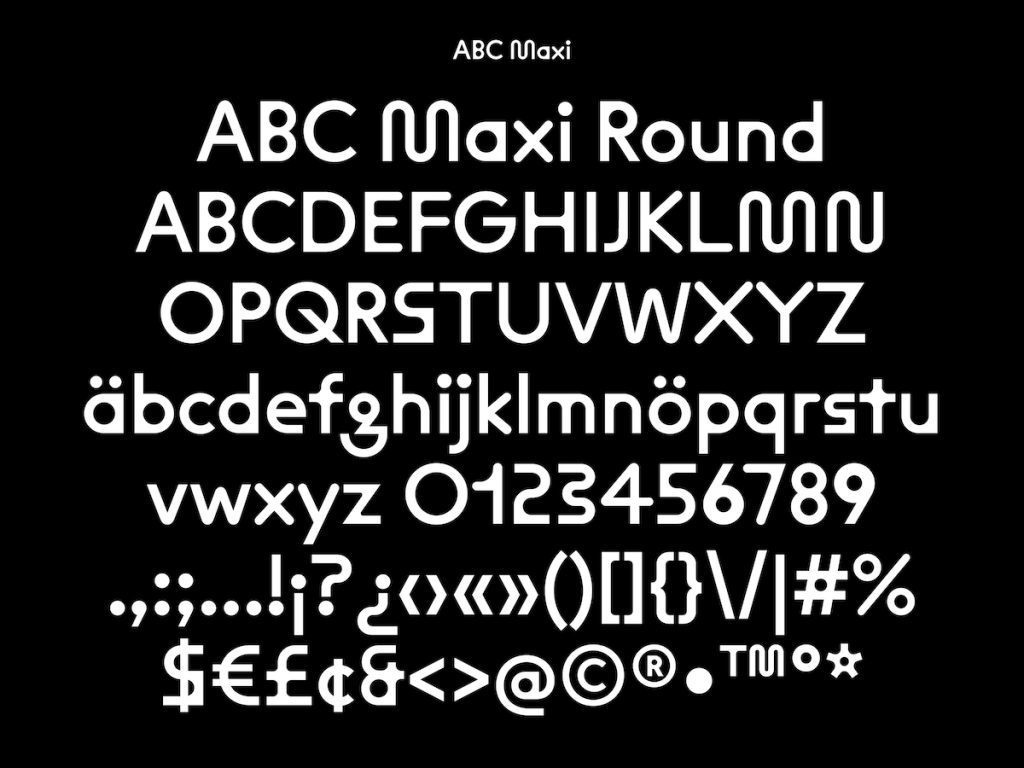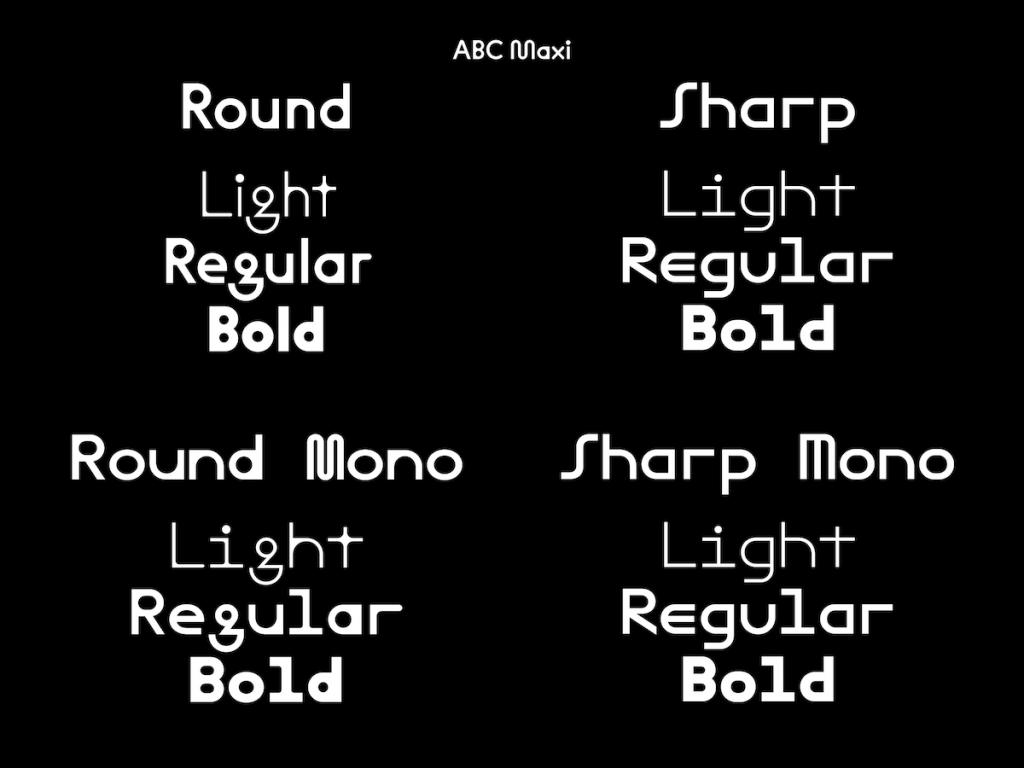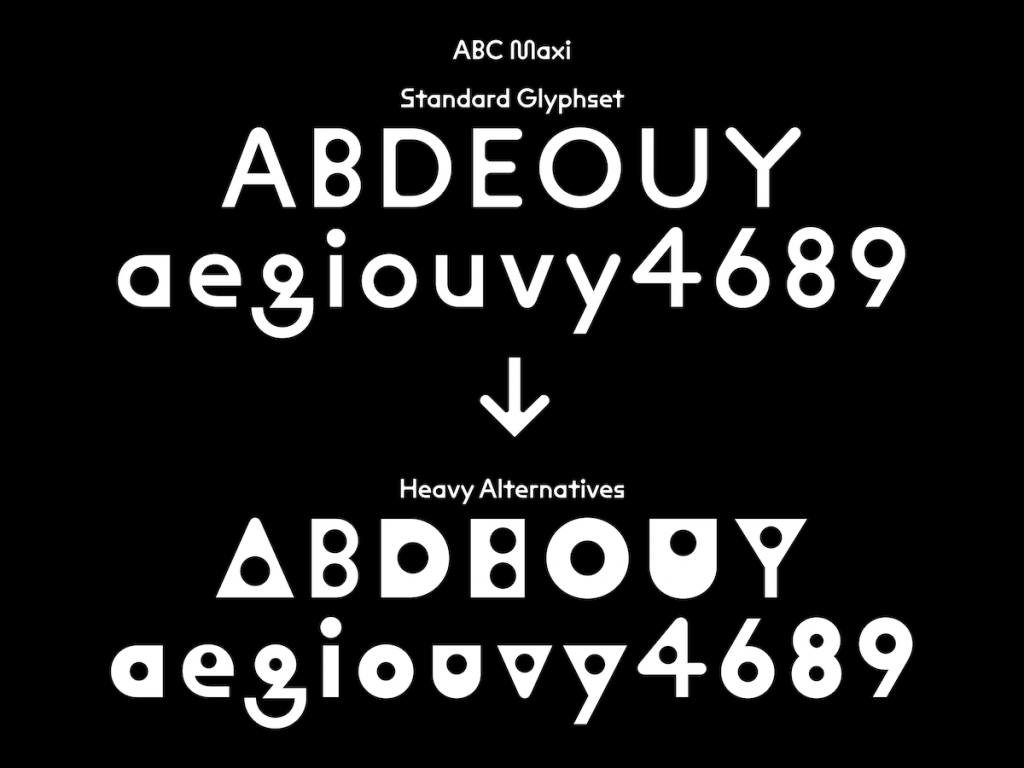
Name: Maxi
Designer: Johannes Breyer, Fabian Harb, and Andree Paat
Foundry: Dinamo
Release Date: September 2020
Back Story: Maxi was one of the two typefaces launched in September this year to herald the arrival of the snazzy new Dinamo website (the other being grotesque font Diatype). The new site is a delicious melange of strange post-internet 3D shapes and animations, emojis, huge orbiting brain-planets, and more—but it’s also the vehicle for Dinamo’s revolutionized approach to font design, licensing, and pricing.
Design-wise, this means that the foundry has chosen to focus on variable font technology because it “feels relevant,” says Dinamo cofounder Johannes Breyer, “yet also human, real, tangible, and relatable.” He adds that such fonts offer their end-user, the designer, a multitude of new possibilities for applications such as animated billboards, streaming, or interactive physical type installations compared to their traditional static counterparts.
As for Dinamo’s new licensing model, the idea is to redress the unfairness that the foundry saw in small companies paying the same amount for a font as a far larger one. “The truth is that most companies pretend the font is only being used on ‘one or two machines,’ and simply pick a license tier that gives them the cheapest price,” says Breyer. “That’s not only unfair, but also nostalgic… we’ve concluded that the bigger the size and reach of a company, the bigger the commercial value extracted from a typeface.” As such, Dinamo’s pricing model is based on the company size of the font’s license owner in terms of number of employees—i.e. the client, usually, rather than the designer—and not the number of people working with the font files.
Back to Maxi. The Dinamo team had initially drawn the first version of the font around late 2015/early 2016. At the time, though, they felt that it wasn’t right to release “such a geometric design.” Until its full release this year, it was only used to design the first Dinamo logo, and Maxi sat in the foundry’s metaphorical drawer until the team “felt the urge” to rework it as a proper release.
What are its distinguishing characteristics? Dinamo describes variable font Maxi as a “heavily-engineered yet warm and witty type system of spaghetti movements and angular lines.” Its shapes are informed by the Swiss International Style, with references including Josef Müller-Brockmann’s 1958 CWS word mark, Marlyse Schmid and Bernard Müller’s 1981 Swatch logo, and Max Bill’s 1960s legibility theories—namely the idea that emphasizing vowels eases readability, hence Maxi’s “disproportionately bold and blocky” vowels and diagonal shapes. Thanks to its variable technology, the font’s forms can be varied in weight from Hairline right through to Black. “While designing the font, we were interested in how subtle manipulations in shape could affect the tone of the overall typeface,” says Breyer. To explore this further, Dinamo created two stylistic variations for emphasis rather than the standard Italics, resulting in four Maxi subfamilies: Round, Round Mono, Sharp, and Sharp Mono.
Maxi’s sense of warmth and playfulness is likely the result of the barely-perceptible optical corrections the designers made to the letter constructions. The font’s “shape vocabulary” is deliberately very graphic, according to Dinamo. “Its proportions form quite a distinct rhythm in text use,” the team adds. “Most dear to our hearts is the variable axis sliding from proportional to Mono, challenging and expanding the design system.”
Why’s it called Maxi? Dinamo mulled over a number of names for the font that reference the things that inspired it, including Brock, Lyse, Joe, Billy, and Mul-Bro. In the end, they landed on the reference to Swiss designer, artist, and architect Max Bill. “Maxi felt like the best fit,” says Breyer, since it incorporates some of the key letters in the font design and also simply because it was the name that “carries the laugh we had when coming up with them.”
What should I use it for? With its unusual forms and vast range of dynamic, variable type possibilities, Maxi is brilliantly suited to uses where it can stand out, such as in headlines or on billboards. “We secretly hope for the Swatch brand to pick up Maxi,” says Dinamo. Swatch, if you’re reading, you know what to do.
What other fonts would it be good to pair with? While Maxi can more than hold its own as the sole typeface for a project, the numerous variations that are possible mean that it can sit nicely alongside any number of other fonts, from simple Modernist serifs to more scripty sans-serifs or fellow experimental-leaning designs. A project for Korean GQ magazine saw Maxi combined with Favorit letter by letter—“definitely one of the best and most surprising applications so far!”